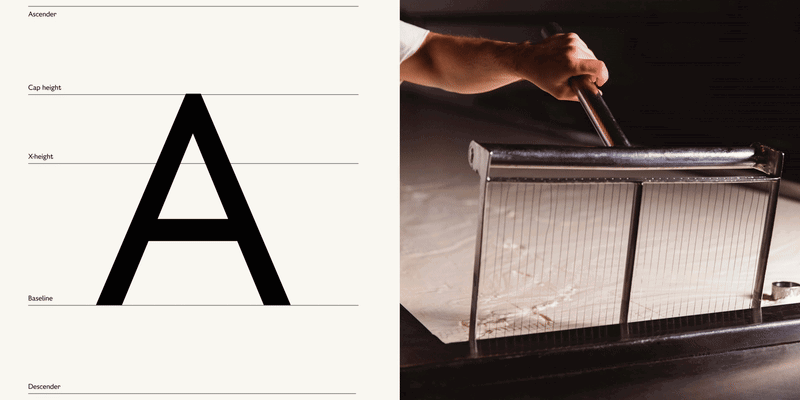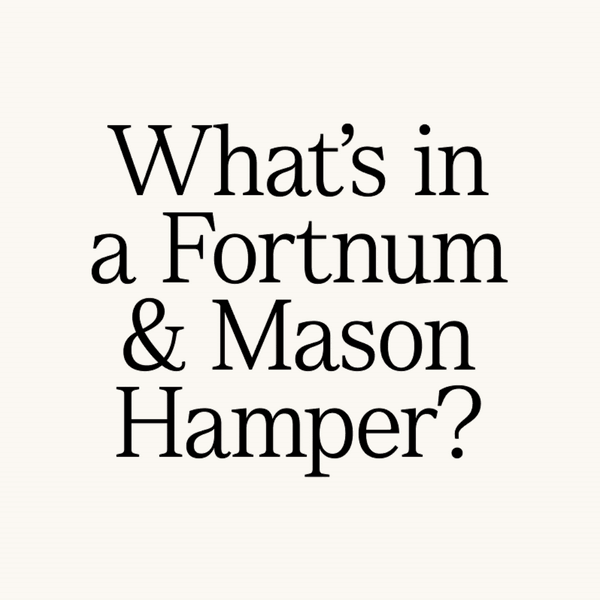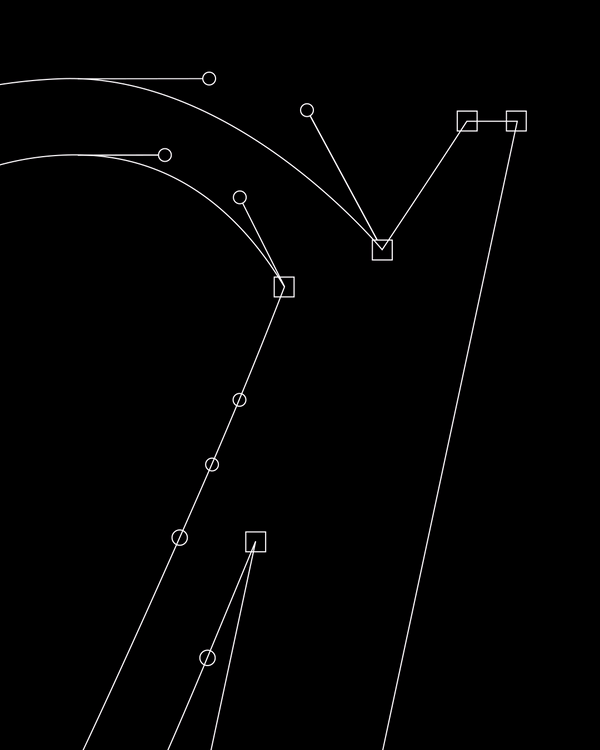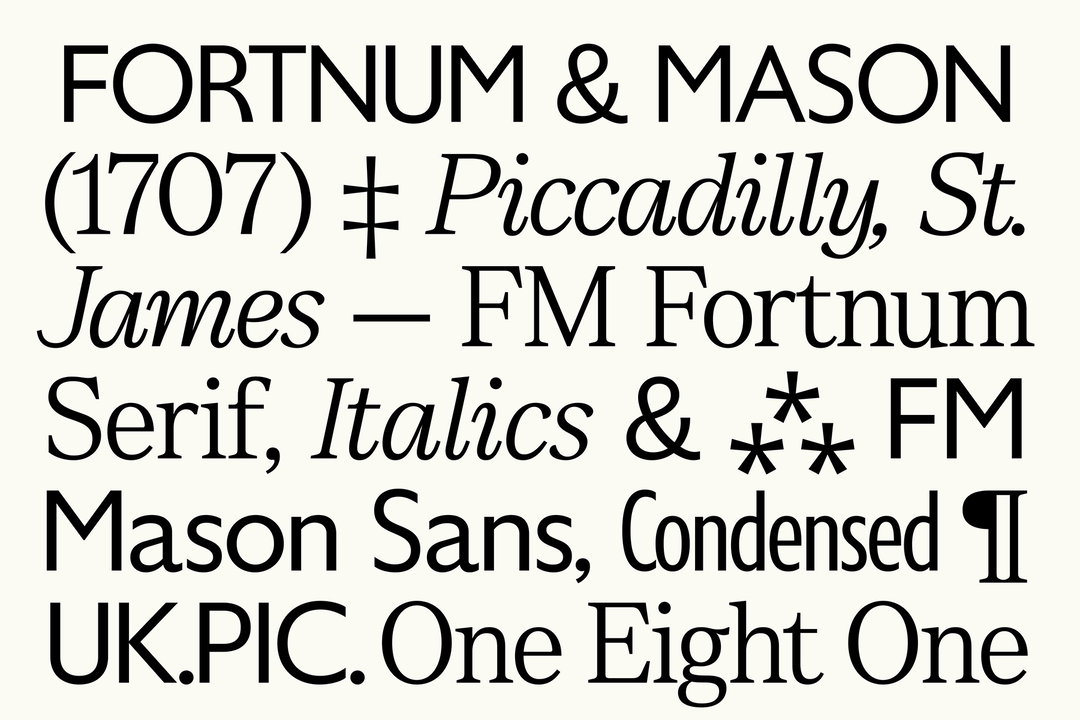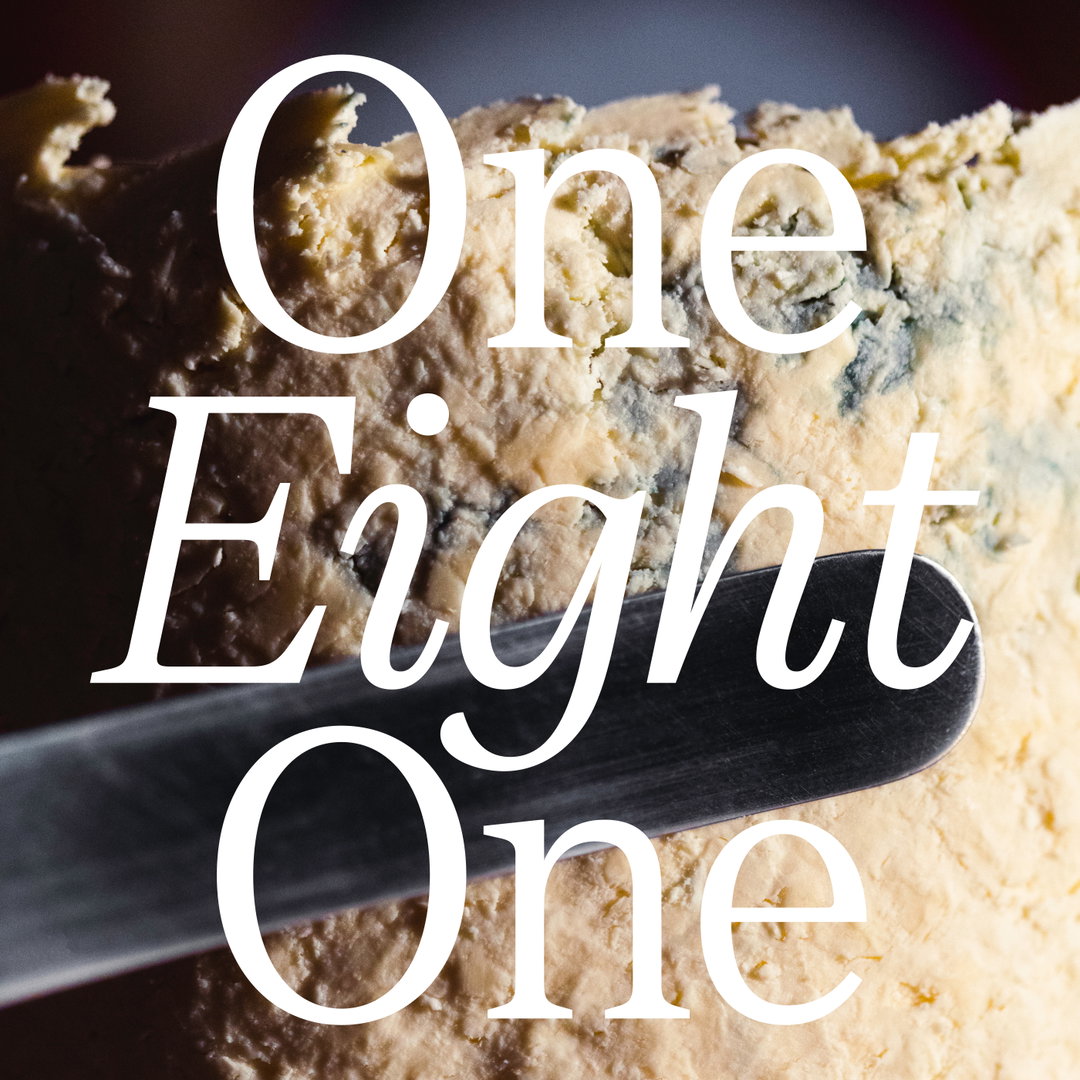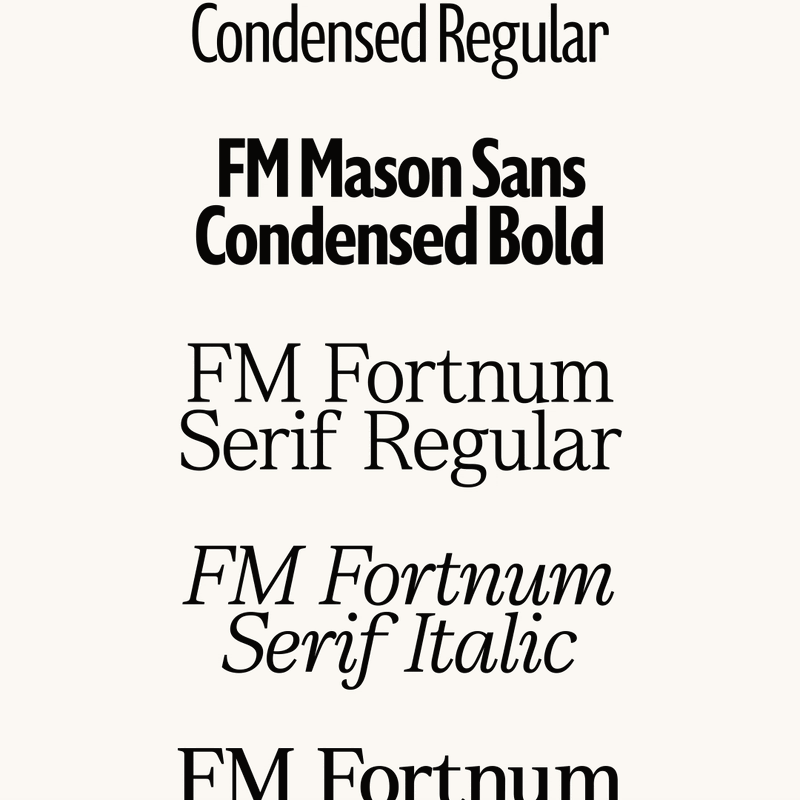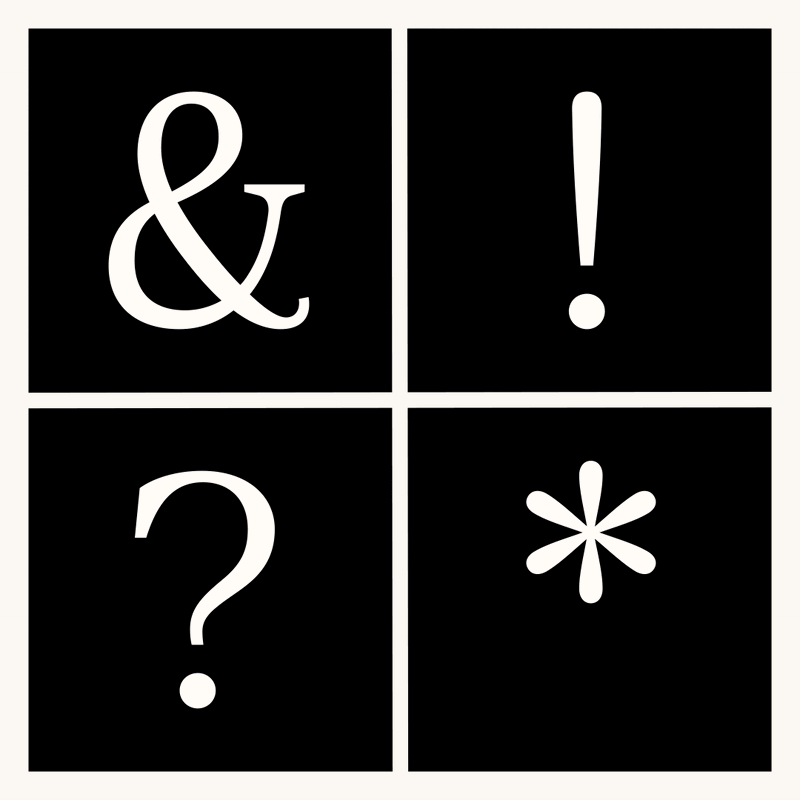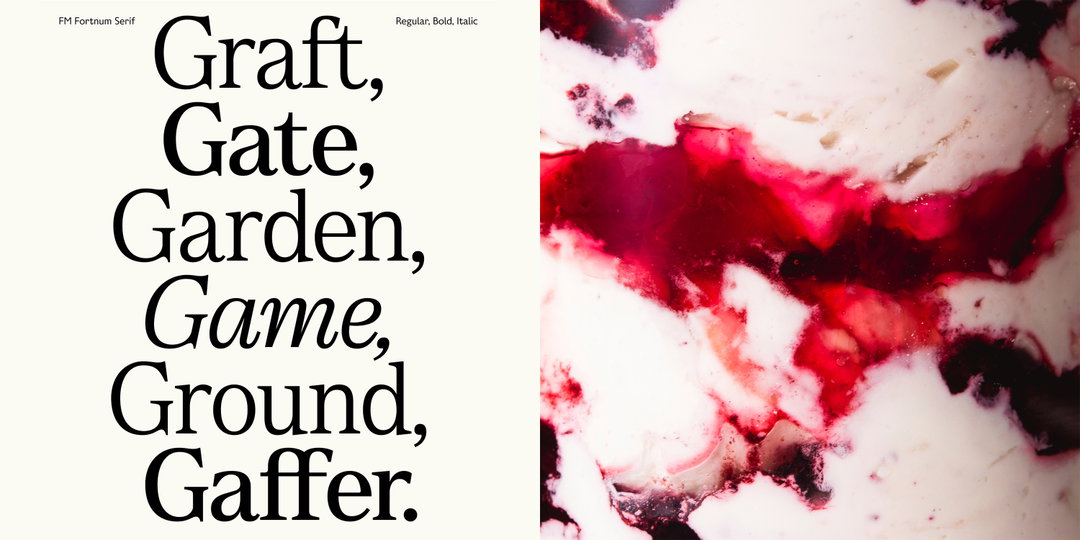
Otherway gives Fortnum & Mason its first bespoke font
300 years in the making, this custom type family captures the brand’s unique historic details and quintessentially British quirks.
Longtime collaborators with the home of hampers and luxury tea boxes, Otherway has continued its development of British department store Fortnum & Mason’s iconic brand identity with a bespoke typeface. Having worked with the company for over ten years, the creative agency has been “dusting down the brand” and making Fortnum’s “more relevant, to more people, more often”. One thing that was missing though was a bespoke letterset for the quintessentially British fine foods store.
Opening its doors all the way back in 1707, (over 300 years ago), the store has never had its very own custom font before. So, the bespoke type project was a pretty big deal. A custom letterset for Fortnum & Mason would mean that the brand would now truly own its written identity and have “control over its usage on a global scale”, says Otherway partner Ben Lewin. With the idea to carve out this individuality, “the brand needed to move away from the increasingly generic and overused Gill font” and “build a new serif that had better readability and personality, from button to billboard”.
“Being a British brand, typography has always been at the heart of Fortnum’s design system,” Ben shares. “We delved into the Fortnum’s archive for inspiration – finding details and quirks that would build a robust set of design principles to draw from.” The aim of the game for the design of the typeface then, was to maintain the brand’s “eccentric English personality” in its letterforms whilst crafting something that was “readable, inclusive and accessible to all”.
When Otherway set the brief on this basis, the person for the project was type specialist and design director at Otherway, Brad Rose, who worked closely with the design team at Fortnum’s to “distil 300 years of history into a clear and simple visual guide and set of design principles”, Ben explains. The agency then partnered up with Colophon Foundry, starting with Gill and Century on their drawing board, to iteratively develop a more bespoke serif.
The results were an entire family of type that holds three collections: “a sans serif (FM Mason), its condensed counterpart and a serif (FM Fortnum) totalling 12 styles” says Brad. Designed to “evoke a sense of heritage”, whilst remaining fit for the future of the brand, all letterforms were cut and kerned to have a “timeless quality” that nods to craft. The family’s condensed collection channels the font’s style into more functional outputs like packaging, making the family flexible enough to adapt to a bunch of different touchpoints. The custom font is “a very agile and responsive typeface whatever the requirements thrown at it”, concludes Ben.